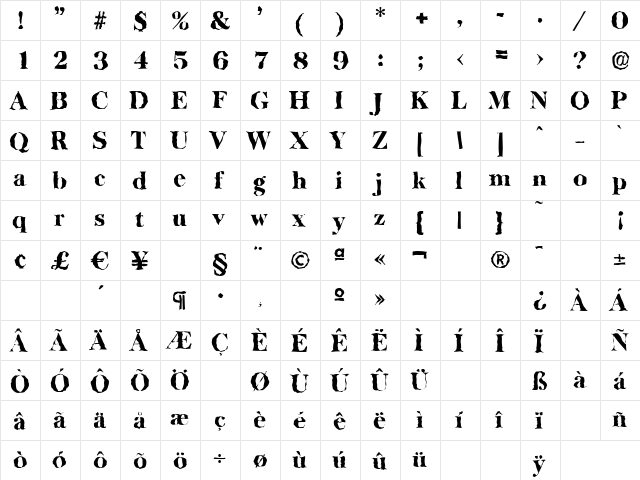
BaskervilleRandom-Heavy Regular Font Preview
BaskervilleRandom-Heavy Regular
BaskervilleRandom-Heavy Regular Font Details
Design Context for BaskervilleRandom-Heavy Typeface
BaskervilleRandom-Heavy is a composed and adaptable typeface that performs quietly and consistently across a wide range of design contexts.